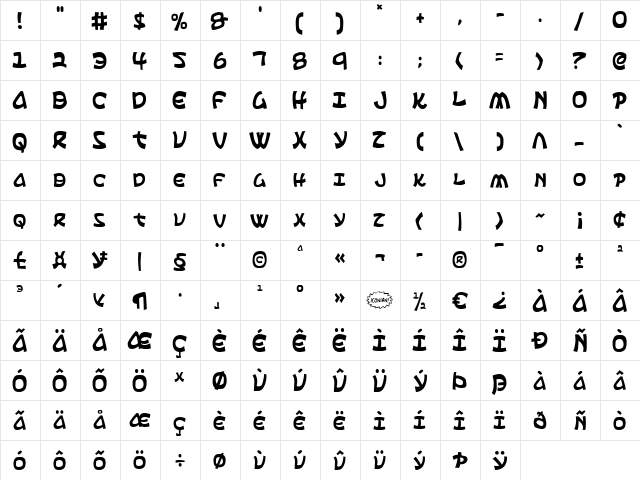
Ephesian Condensed Condensed
Design Context for Ephesian Condensed Typeface
Ephesian Condensed is a composed and adaptable typeface that performs quietly and consistently across a wide range of design contexts. Its narrow stance lets it pack a punch even in space-constrained designs.
Pro Tip: Use Ephesian Condensed in both headline and body roles to test its range before committing to a single application.